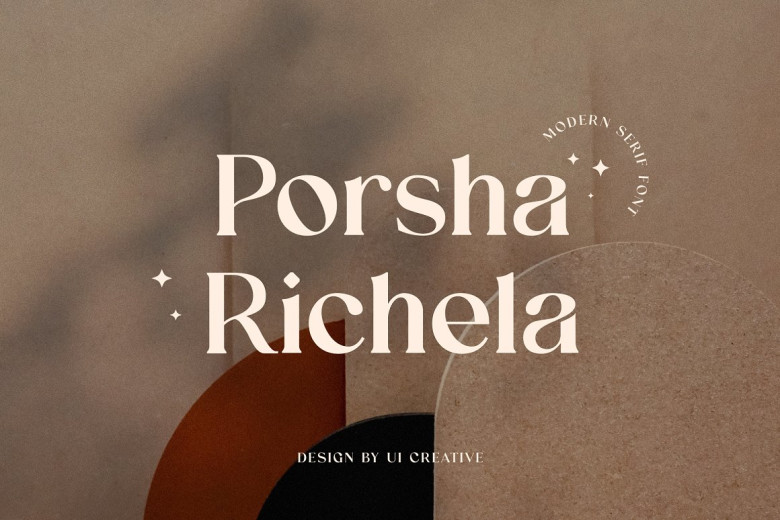
Porsha Richela Font
Porsha Richela Modern serif font is our latest offering! This elegant modern serif font can be used for many projects such as magazine covers, book covers, clothing designs and packaging designs.
Porsha Richela Modern Serif Font